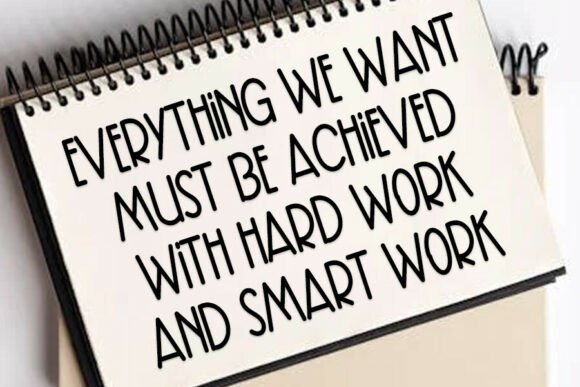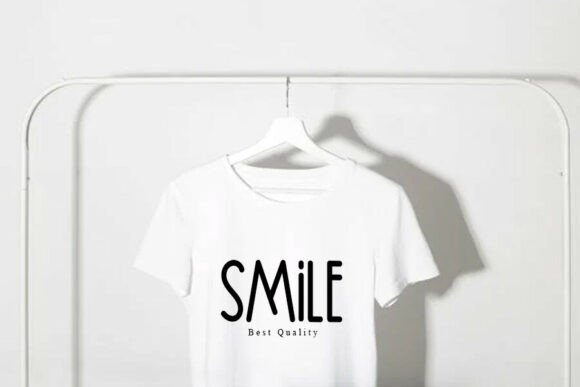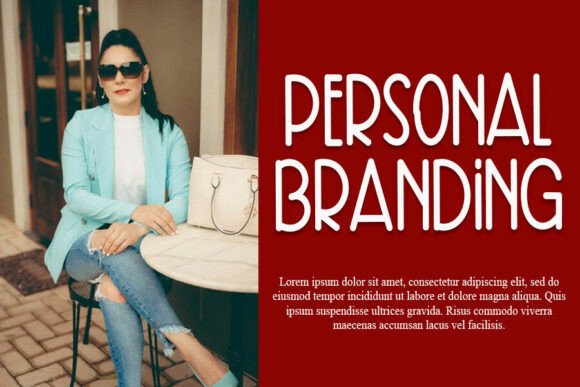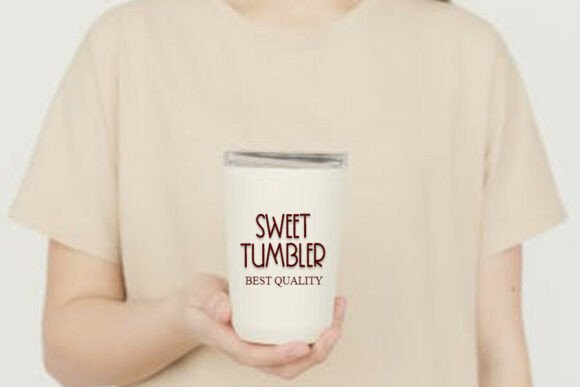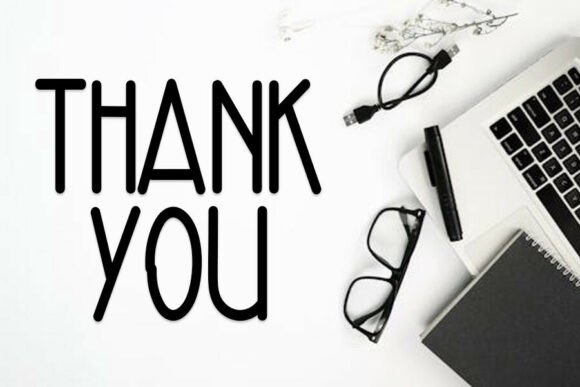
Introducing April Spring Font: The Perfect Addition to Your Holiday Designs
As the holiday season approaches, designers and crafters are on the lookout for the perfect typography to add a touch of magic to their creations. Look no further than the April Spring Font, a festive and merry typeface that captures the spirit of the holiday season. With its decorative elements and whimsical flair, this font is sure to bring a cheerful and nostalgic ambiance to your words.
The April Spring Font is designed to evoke the feeling of springtime and the holiday season. Its decorative elements and whimsical flair make it perfect for greeting cards, gift tags, and holiday-themed projects. Whether you’re designing a Christmas card, a Easter egg hunt flyer, or a spring-themed party invitation, this font is sure to add a touch of enchantment to your designs.
The April Spring Font is a versatile typeface that can be used by designers and crafters alike. Its PUA coding makes it easy to access all the amazing glyphs and ligatures, allowing you to create unique and eye-catching designs. Whether you’re a professional designer or a hobbyist crafter, this font is sure to become a favorite in your collection.
Key Features of April Spring Font
• Festive and Merry Design: The April Spring Font is designed to capture the spirit of the holiday season, with decorative elements and whimsical flair.
• PUA Coded: This font is PUA coded, making it easy to access all the amazing glyphs and ligatures.
• Perfect for Holiday Projects: The April Spring Font is perfect for greeting cards, gift tags, and holiday-themed projects.
Tips for Using April Spring Font
Here are a few tips for using the April Spring Font in your designs:
• Pair it with Other Fonts: The April Spring Font pairs well with other fonts, such as sans-serif fonts or script fonts.
• Use it for Headings: This font is perfect for headings and titles, adding a touch of whimsy and flair to your designs.
• Experiment with Colors: The April Spring Font looks great in a variety of colors, from bright and bold to pastel and soft.
• What is the April Spring Font?: The April Spring Font is a festive and merry typeface designed to capture the spirit of the holiday season.
• Is the April Spring Font PUA coded?: Yes, the April Spring Font is PUA coded, making it easy to access all the amazing glyphs and ligatures.